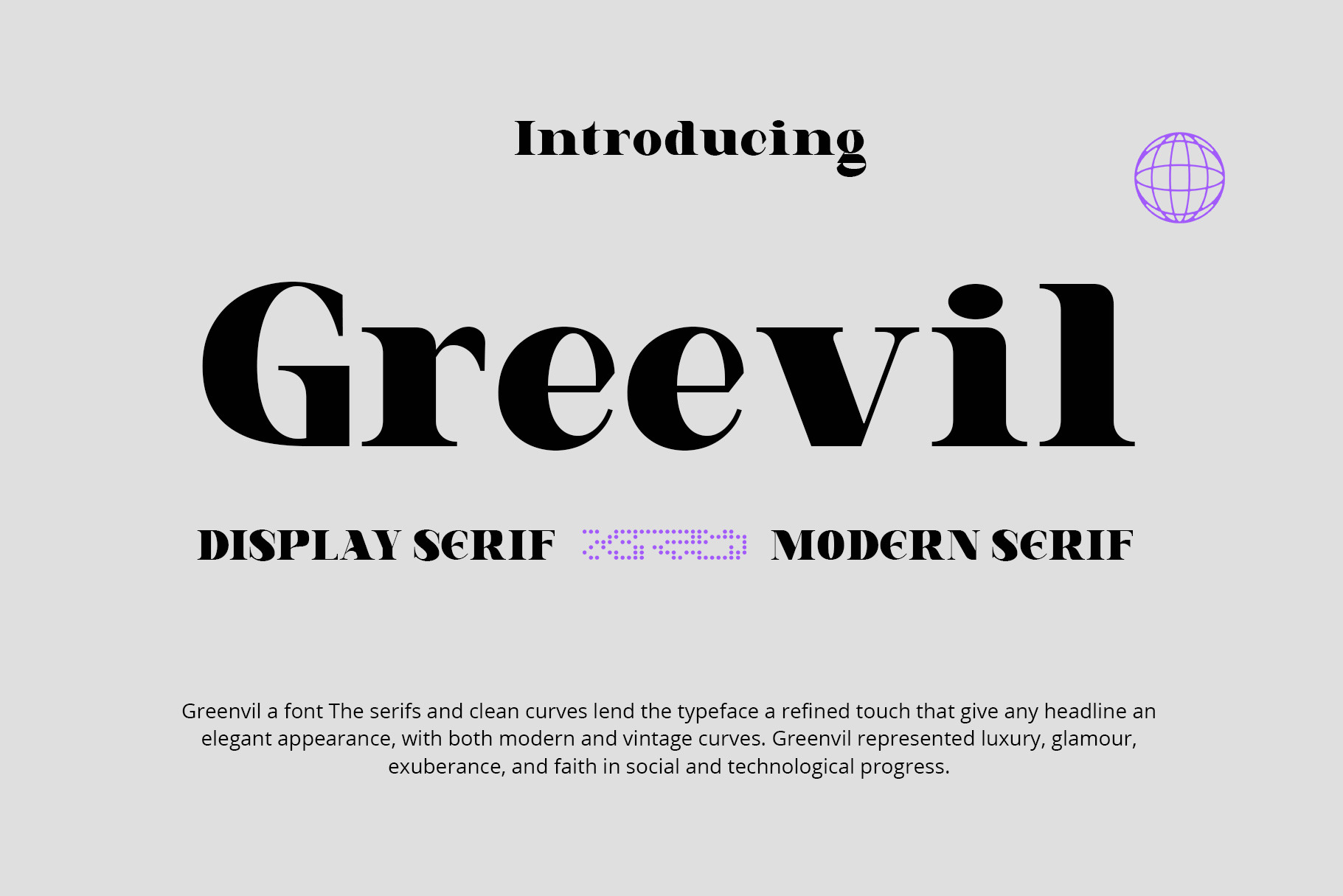
Greevil Display Font
Greevil is a modern serif, typeface a refined touch that give any headline an elegant appearance, with both modern and vintage curves. Greevil represented luxury, glamour, exuberance, and faith in social and technological progress and support multilingual.
It works perfectly for creative project such as logo, T-shirt / apparel, badge, invitation, packaging,headline, poster, magazine, greeting card, and wedding invitation. You can access the open type features and multilingual on mostly Adobe programs, such as Adobe Indesign, Adobe Illustrator, Adobe photoshop. etc.